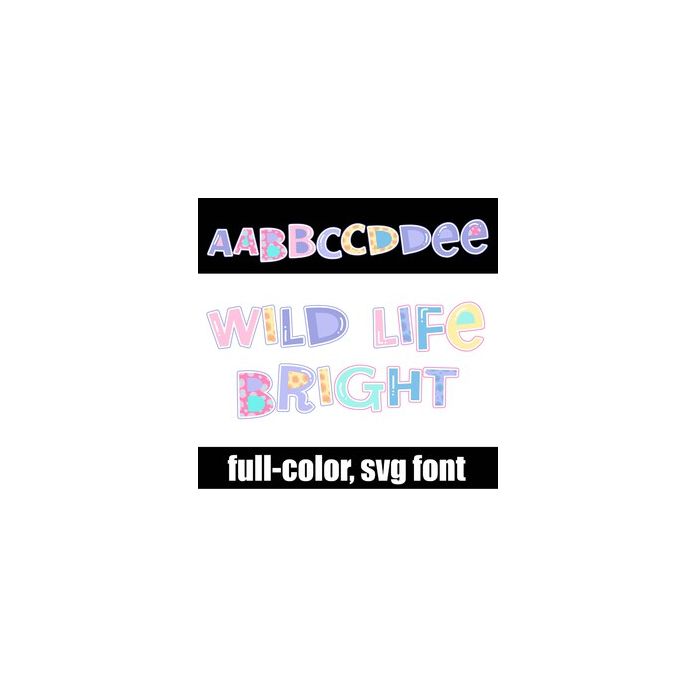
This full-color font features colorful animal prints in pastels. There is an alt case w/ additional colors you can access through your system or Silhouette's glyph map.